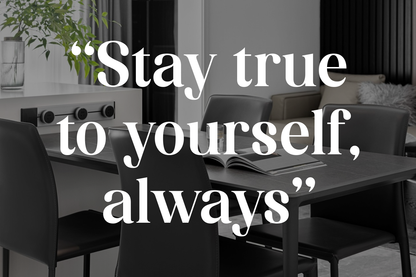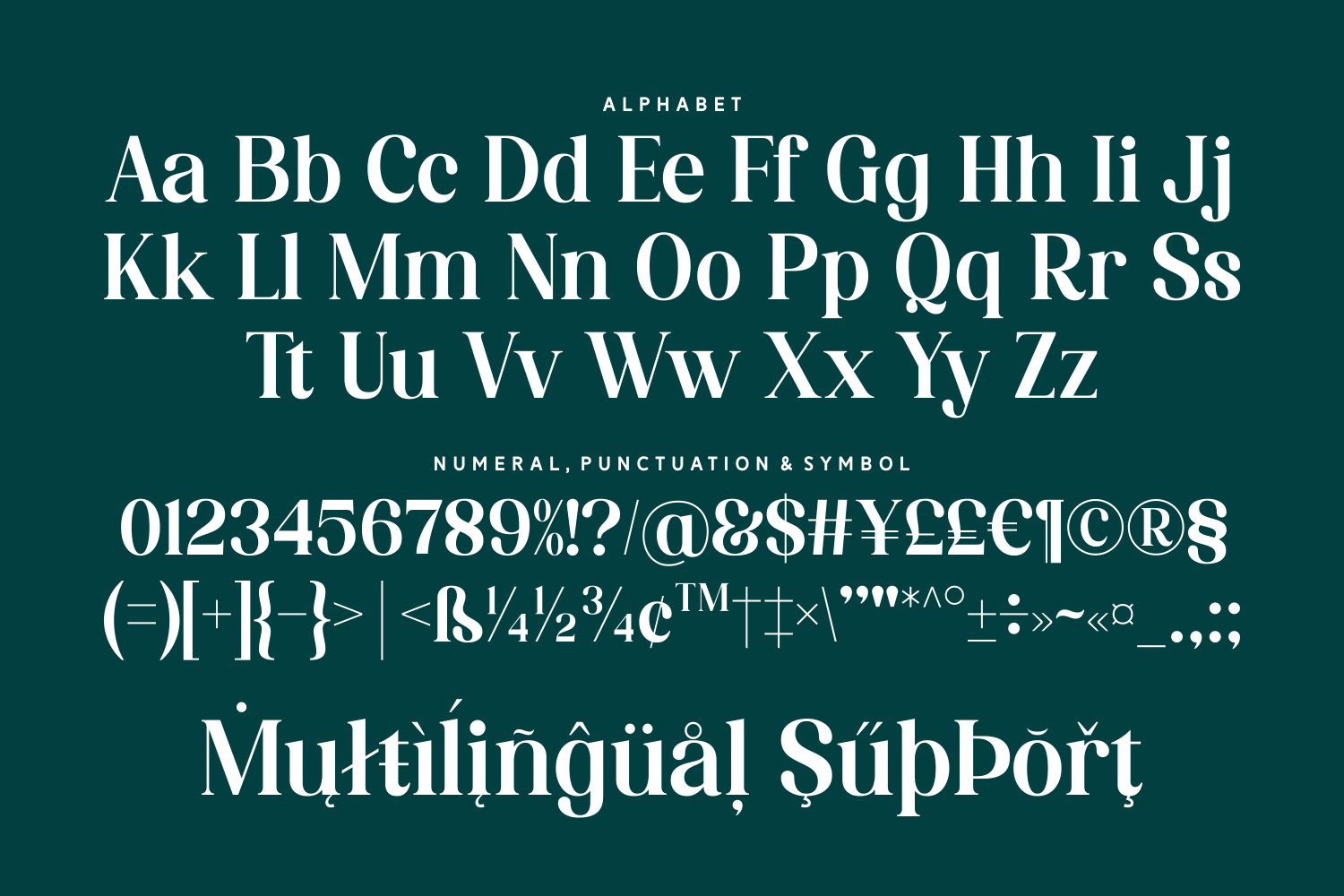
Honestly Speaking
Honestly Speaking is a graceful modern serif font that blends warmth, confidence, and clarity. Designed with multilingual support and a full set of punctuation and symbols, Honestly Speaking brings a sophisticated yet inviting tone to both print and digital projects. Its refined details make it a versatile choice for creating timeless, stylish compositions.